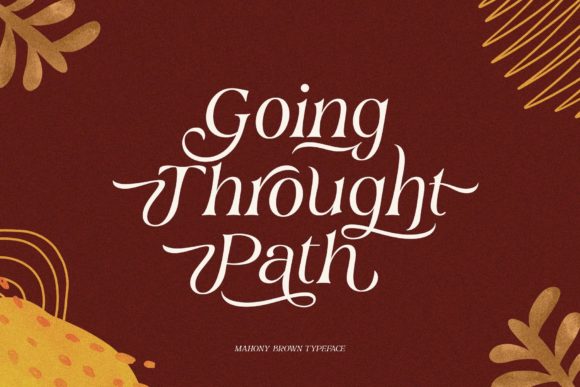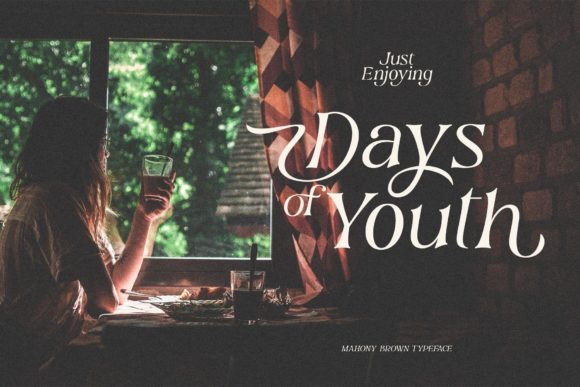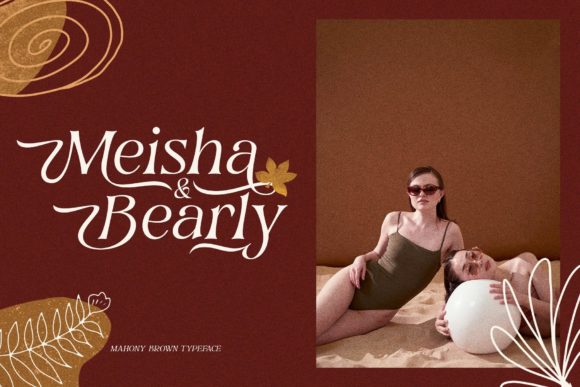
Introduction to Mahony Browns Font
As designers, we’ve all been there – staring at a blank canvas, trying to bring our creative project to life. But sometimes, all it takes is the right font to spark inspiration. Enter the elegant Mahony Browns Font, a high-quality serif typeface that’s about to become your new go-to design resource.
With its smooth curves and dynamic serif style, the Mahony Browns Font is perfect for designers looking to add a touch of sophistication to their work. Whether you’re working on a free download or a paid project, this versatile font is sure to impress. And with its transparent background and support for OpenType features, you can trust that your design will look its best. In this article, we’ll dive deeper into the world of Mahony Browns Font and explore what makes it a valuable addition to any designer’s toolkit.
So, let’s get started and discover the beauty of the Mahony Browns Font!
Key Features of Mahony Browns Font
- High-quality design for creative projects, ideal for use in various digital applications.
- Features a transparent background, allowing for seamless integration with various design elements.
- Designed with a unique, modern aesthetic, perfect for designers seeking a distinctive font for their projects.
- Can be used as a design resource for a range of creative projects, from logos and branding to digital graphics and print materials.
Honest Review: Mahony Browns Font
As a designer, I’m always on the lookout for high-quality design resources to elevate my creative projects. Recently, I stumbled upon the Mahony Browns Font, and I must say it’s been a game-changer. Here’s my honest review.
What works well: ✨ The Mahony Browns Font is incredibly versatile and can be used for a wide range of design projects, from logos to brochures. The font is well-designed, with a unique blend of modern and vintage elements that make it perfect for creating eye-catching designs. I also appreciate that it’s available for free download, making it an excellent addition to any designer’s toolkit.
What doesn’t work well: ⚠️ While the font itself is excellent, I did encounter some issues with the transparent background. In some cases, it didn’t render properly, which can be frustrating when working on a project. Additionally, the font is a bit on the heavier side, so it may not be suitable for projects that require a more minimalist aesthetic.
Overall impression: I’m thoroughly impressed with the Mahony Browns Font. Its unique design and high quality make it an excellent choice for designers working on creative projects. While it may have some limitations, I believe it’s well worth the free download.
- High-quality design suitable for various creative projects
- Unique blend of modern and vintage elements
- Translucent background can be problematic
- Font may be too heavy for minimalist designs
Mahony Browns Font is ideal for various design projects, including logos, business cards, social media graphics, presentations, and posters. It’s a free download and can be used as a design resource for any creative project requiring high-quality typography.